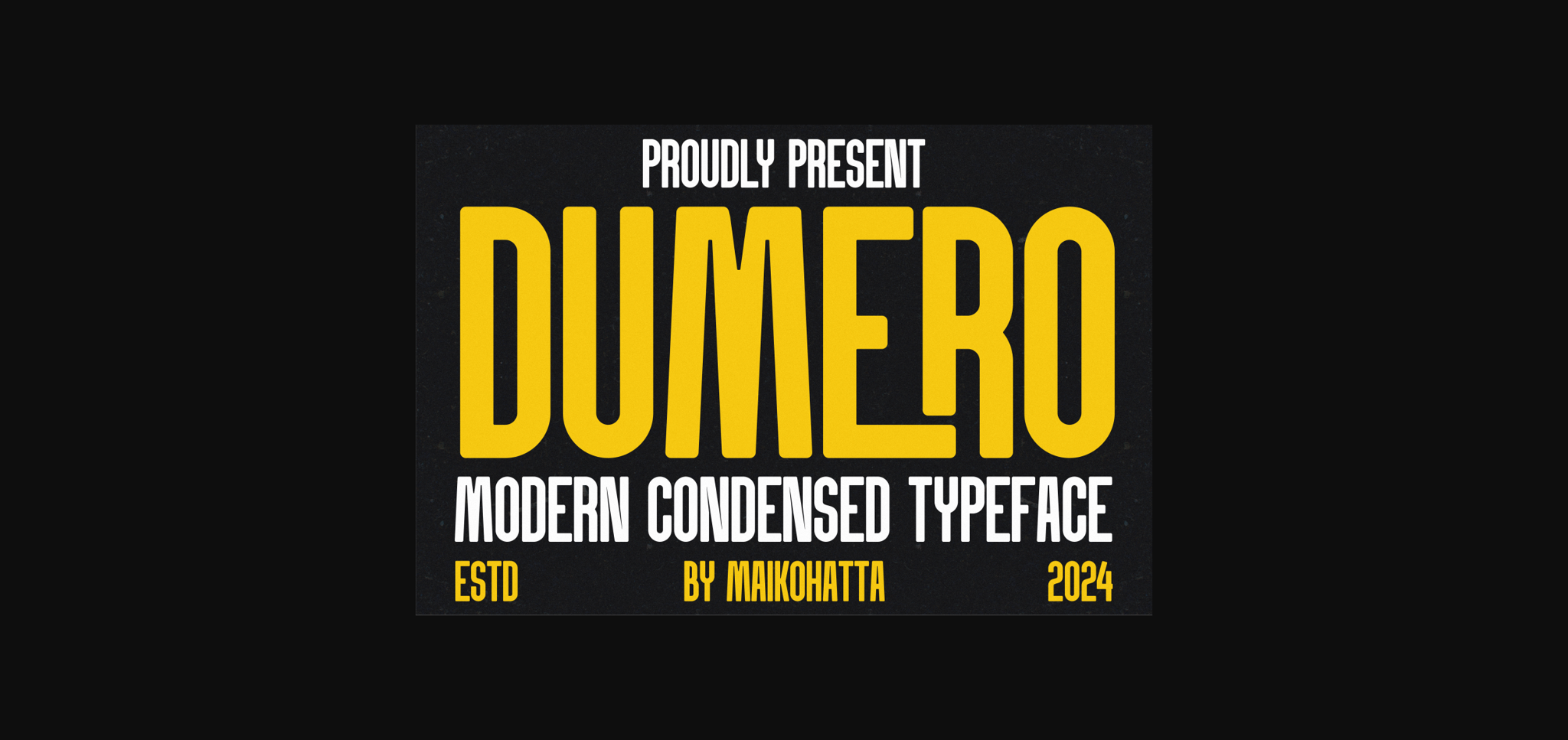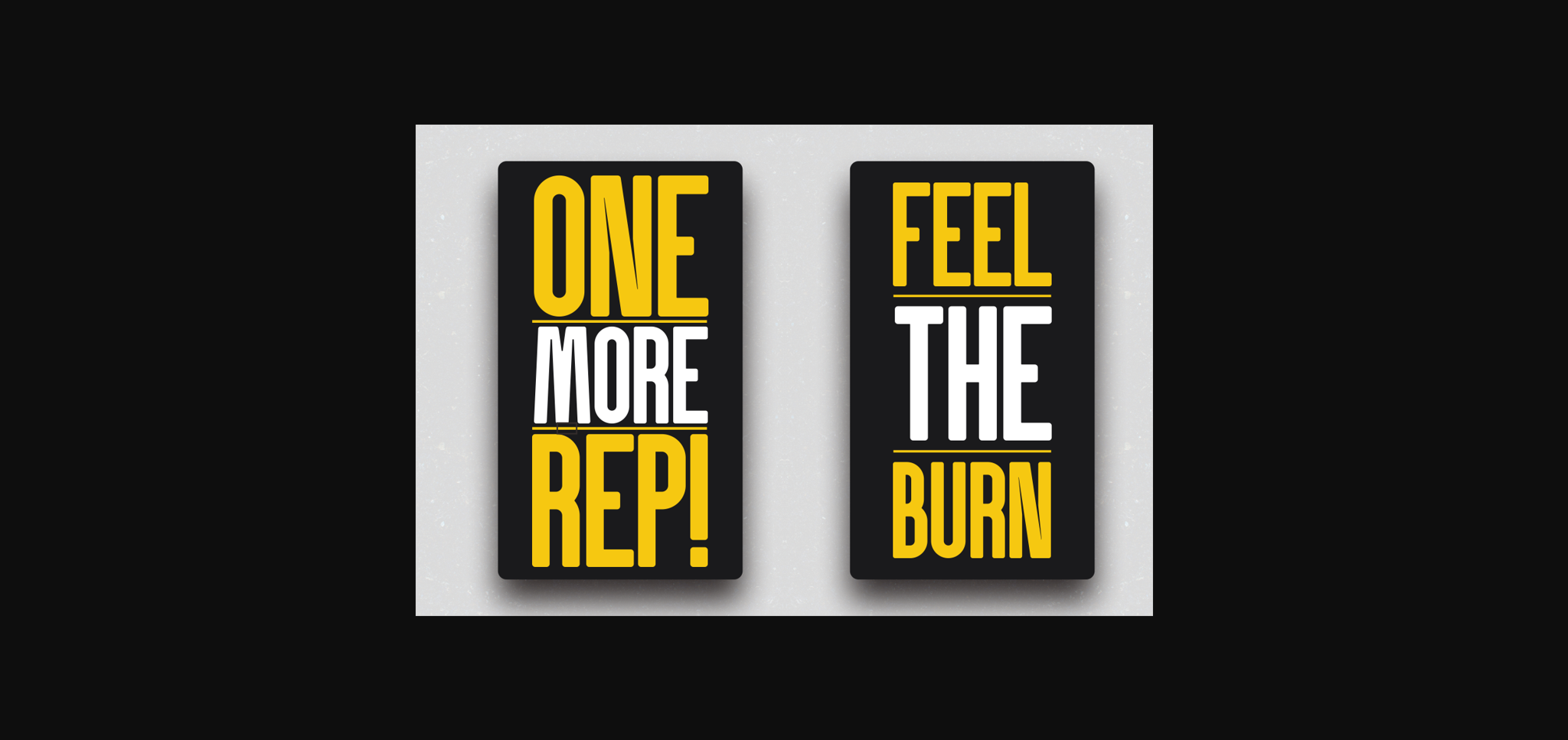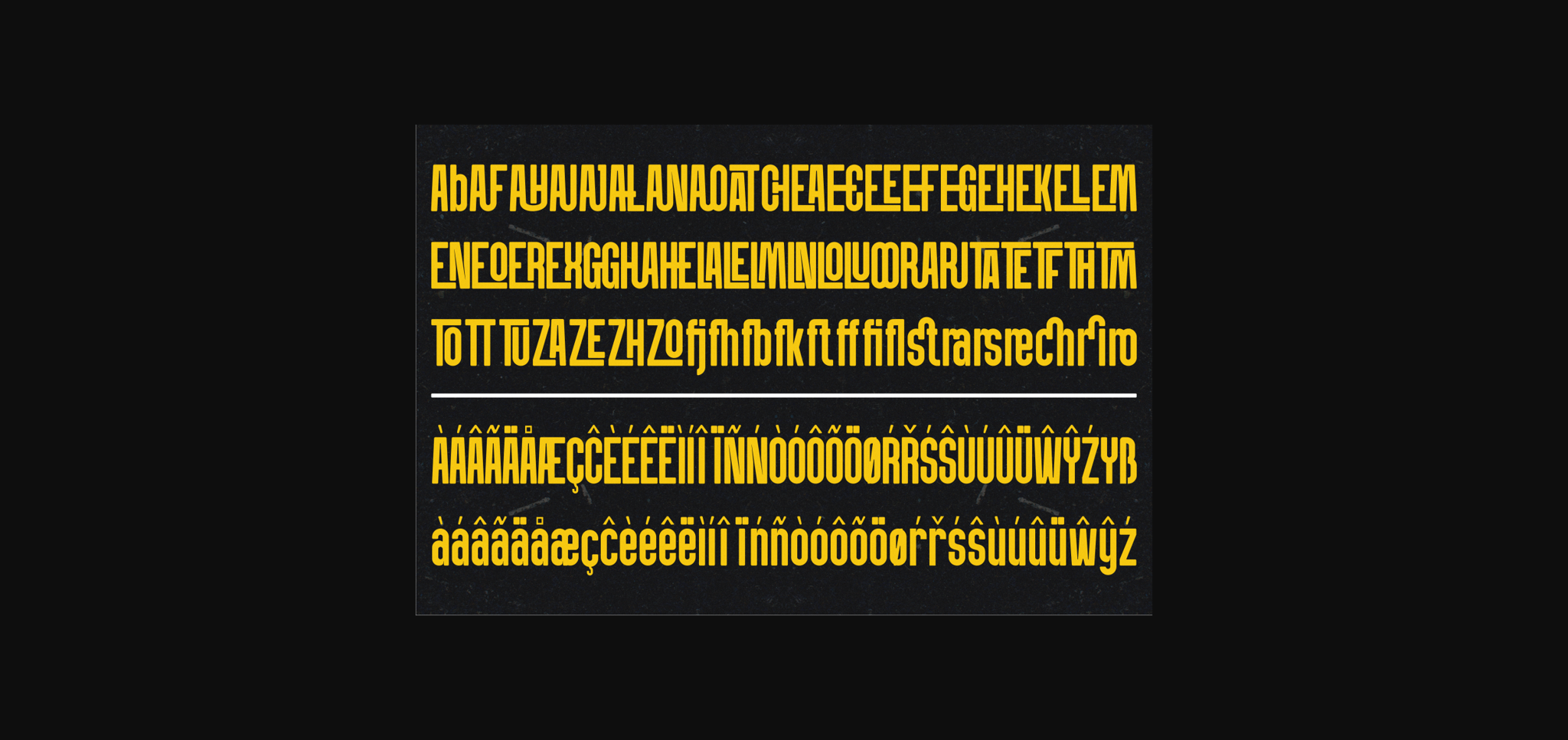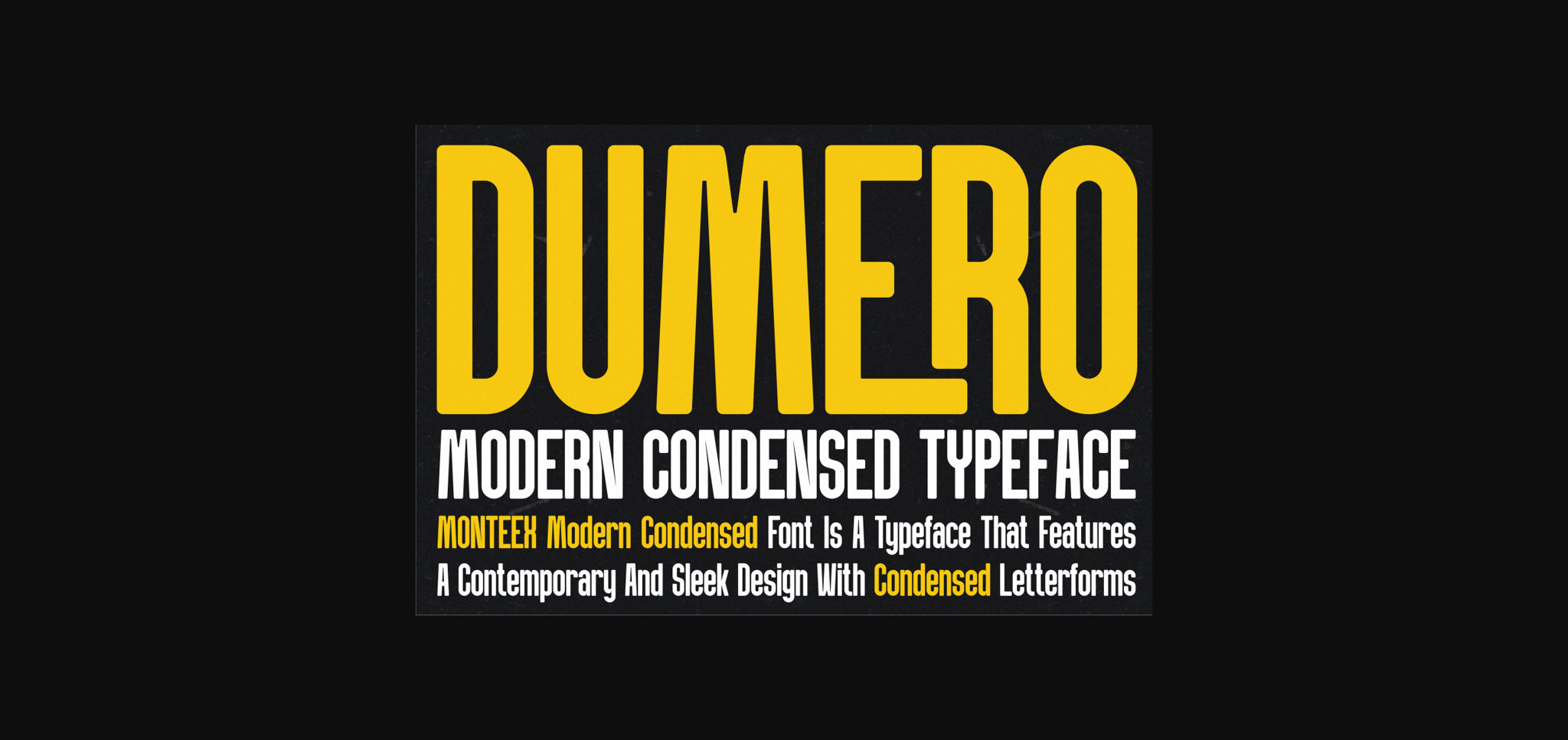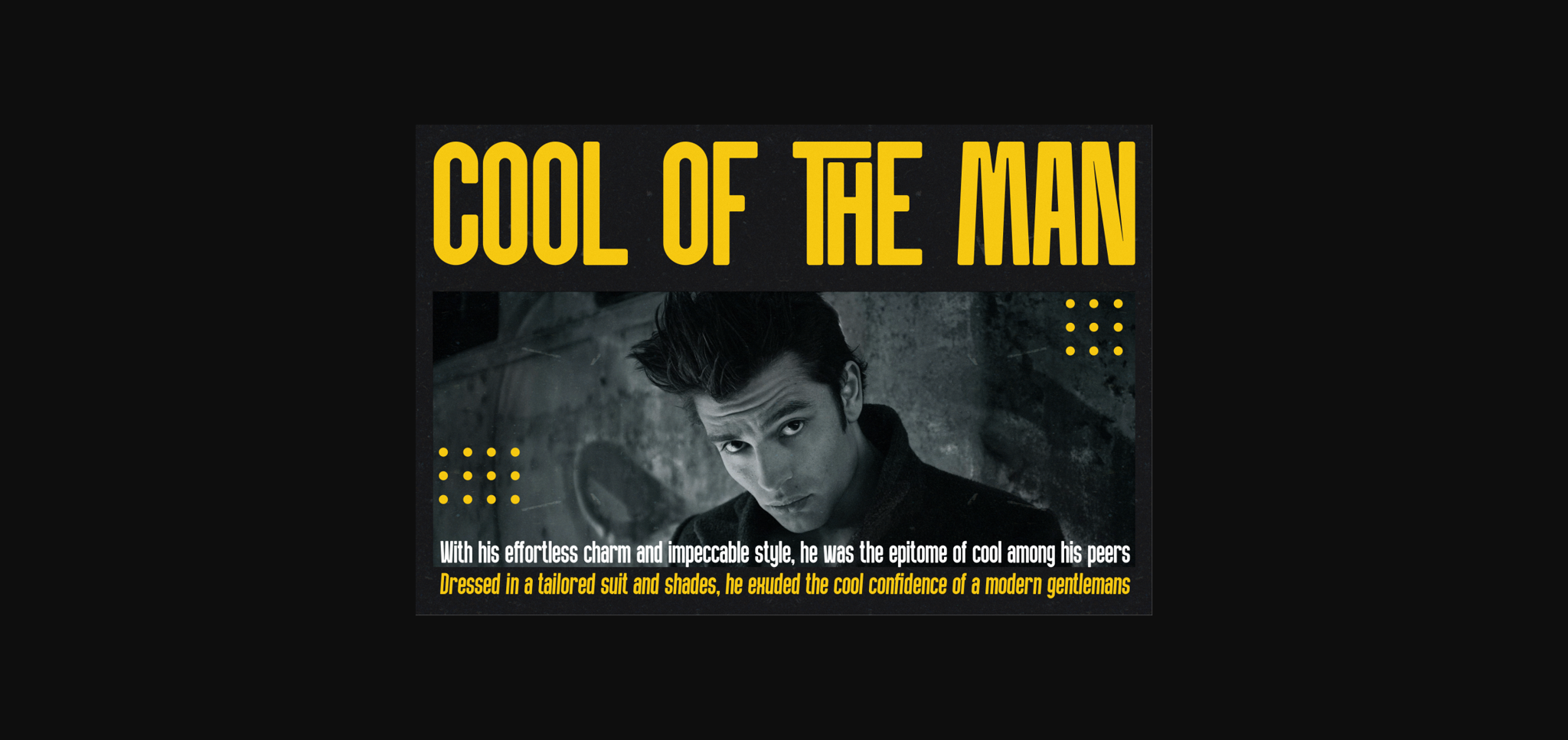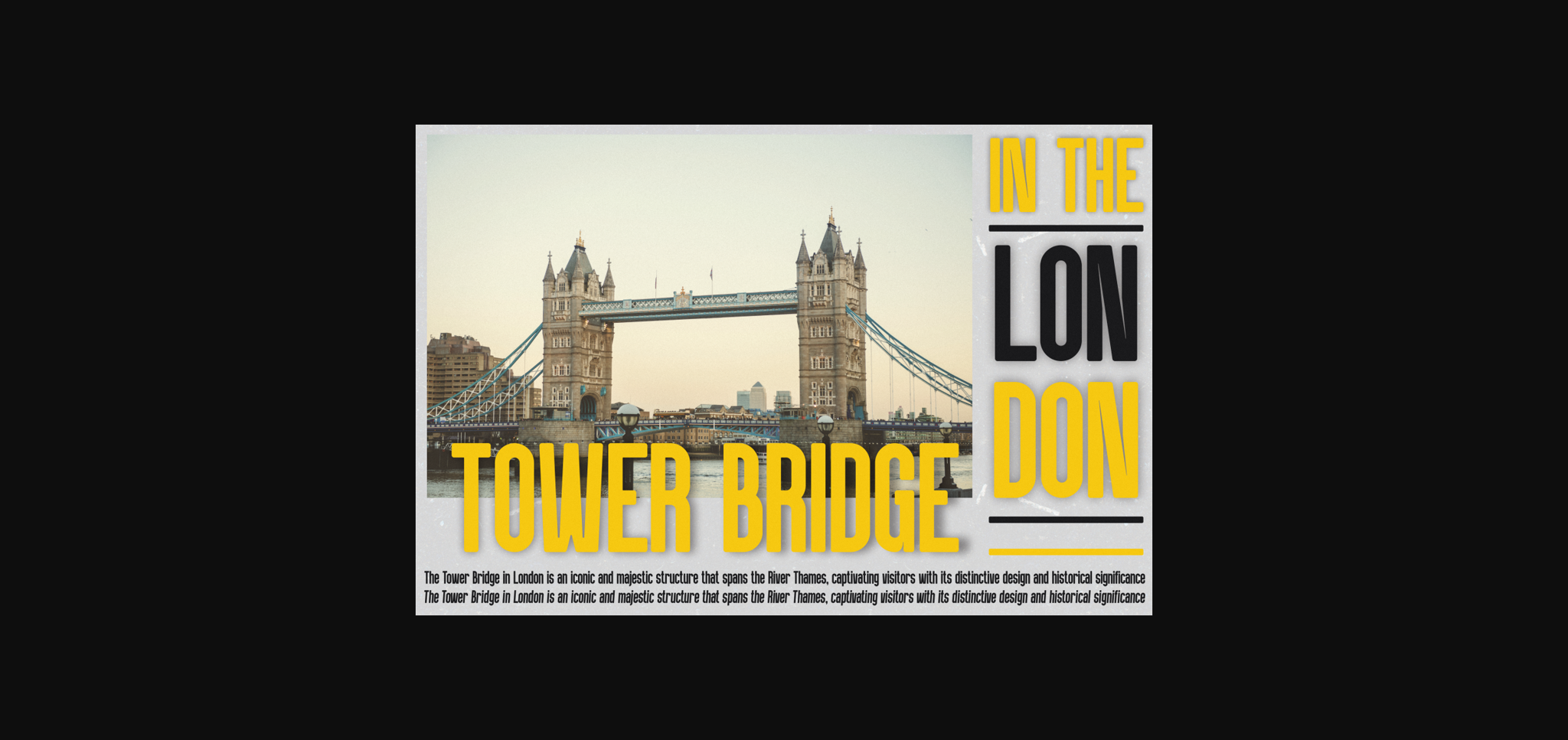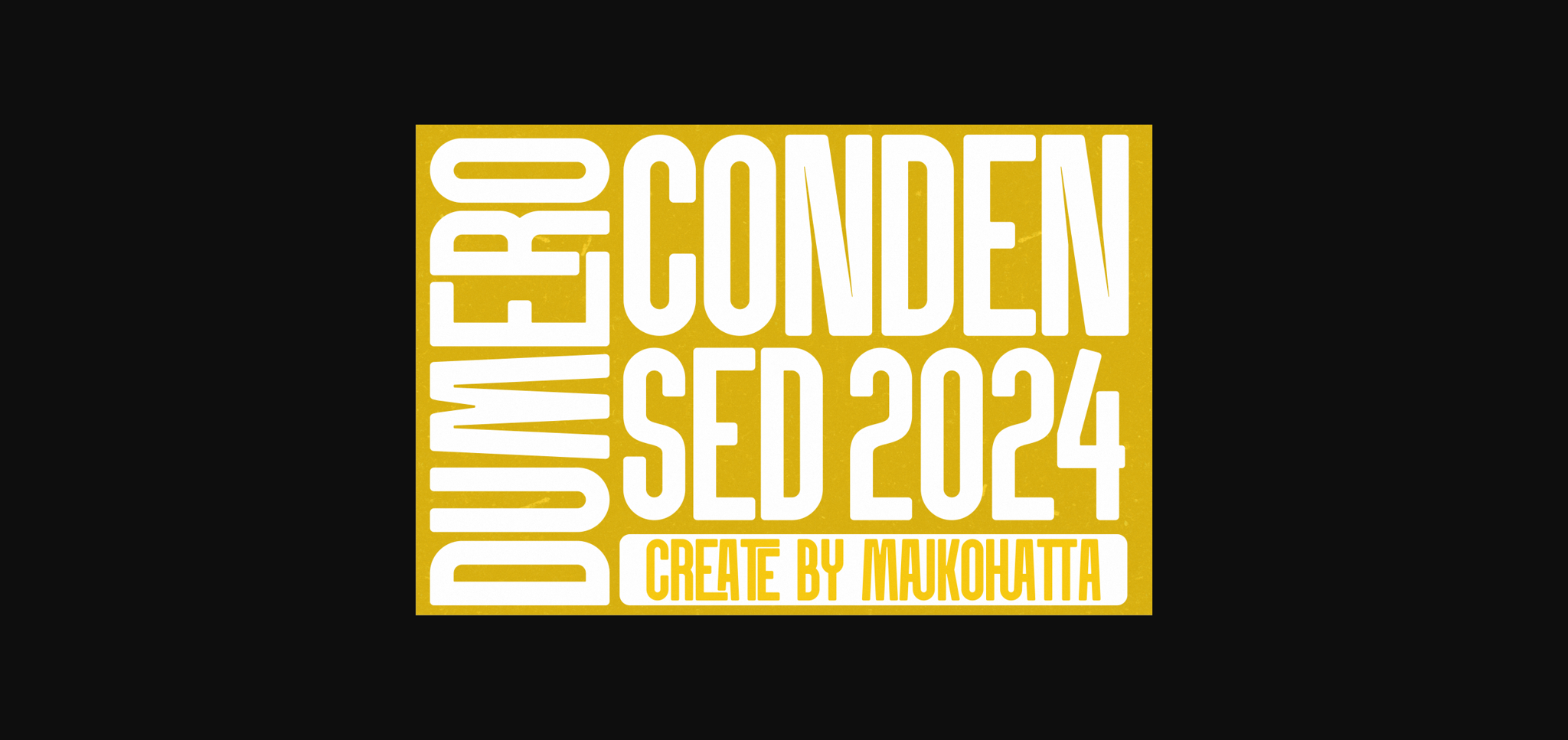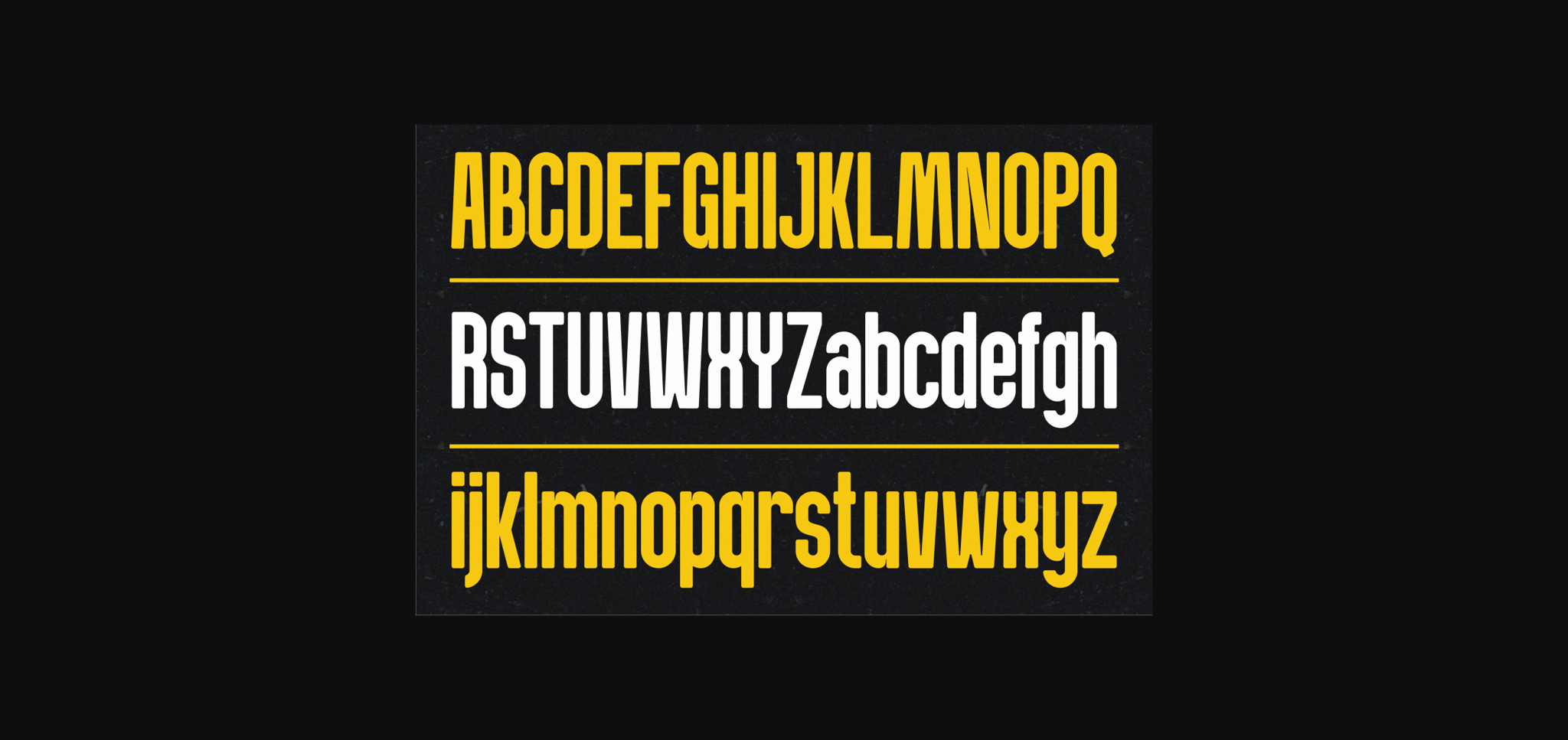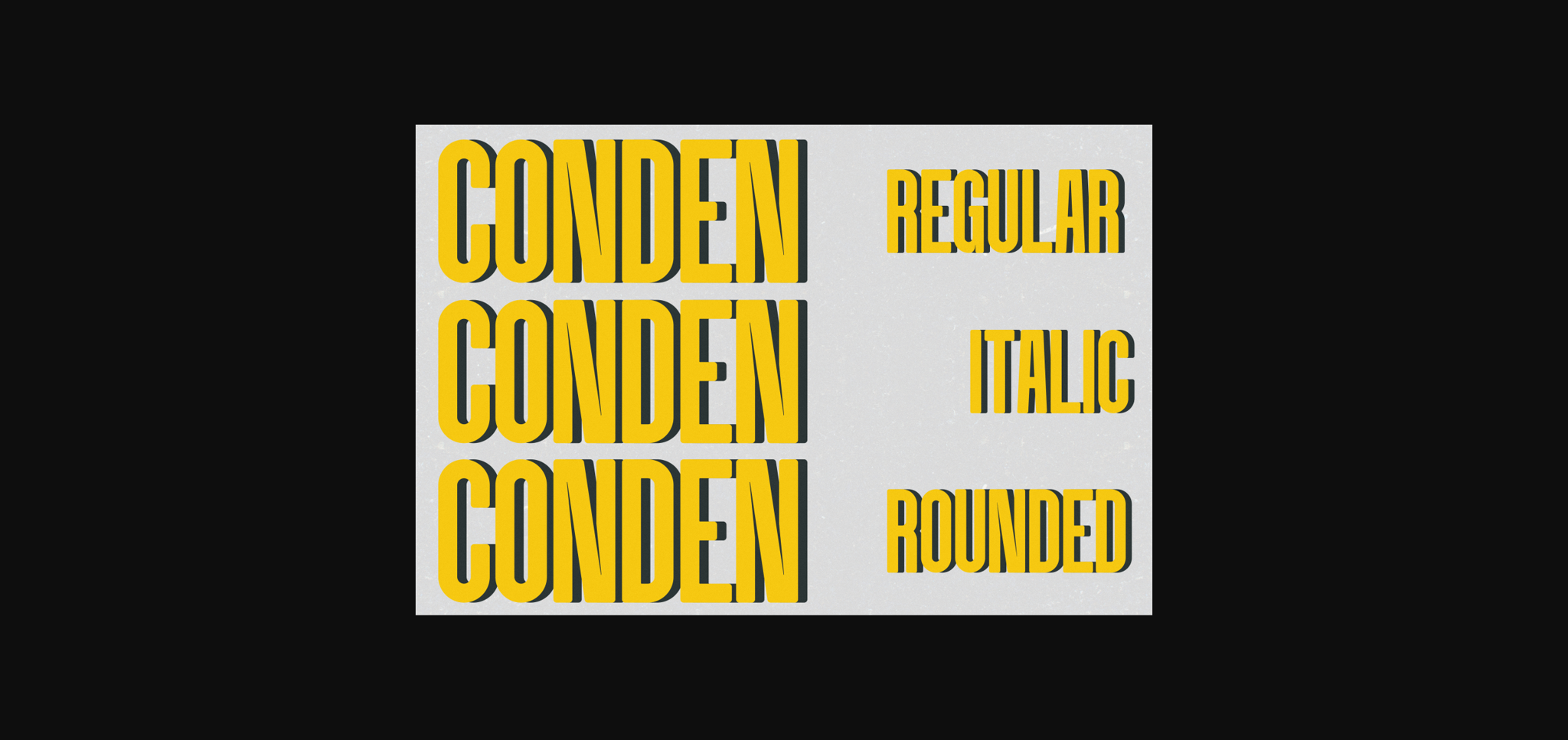
Dumero Font
About Dumero Font
Dumero is a sleek and modern sans-serif font with a condensed design, perfect for projects that require a contemporary aesthetic. Its clean lines and balanced proportions make it ideal for headlines, logos, and signage. With its versatility and readability, Dumero adds a touch of sophistication to any design endeavor.